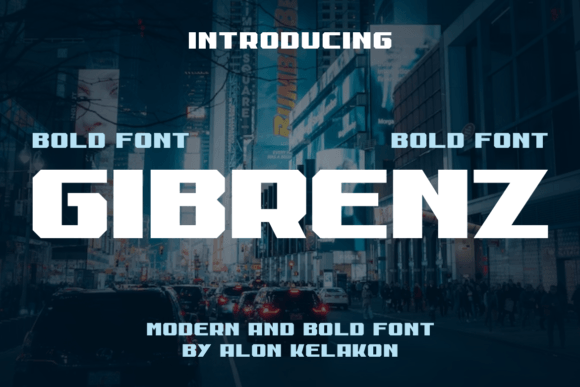
The Perfect Font for the Modern Designer
As a designer, you know the struggle of finding the perfect font to elevate your project from good to great. You’ve spent hours browsing through fonts, trying to find that one that captures the essence of your brand or message. And then, it hits you – the perfect combination of style and readability that makes your design shine.
Enter Gibrenz Font, a clean and versatile sans-serif typeface that’s designed to bring a sense of modern sophistication to any design project. With its balanced letterforms and precise geometry, Gibrenz Font is perfect for branding, editorial layouts, and corporate materials. Whether you’re working on a logo, brochure, or website, this font is sure to impress. Its versatility and readability make it a valuable addition to any designer’s toolkit, and its professional look is sure to leave a lasting impression.
Gibrenz Font Key Features
- Font Family: Gibrenz Font is a sans-serif font family that includes 4 styles: Regular, Bold, Italic, and Bold Italic.
- Size and Resolution: Designed to be highly legible at various sizes and resolutions, from 10pt to 24pt at 300 DPI (dots per inch).
- Unique Characteristics: Gibrenz Font features a unique blend of modern and minimalist design elements, making it perfect for corporate branding, digital products, and editorial content.
- Language Support: Supports a wide range of languages, including English, Spanish, French, German, Italian, Portuguese, and many more.
- Kerning and Glyphs: Optimized kerning and a comprehensive set of glyphs ensure smooth text rendering and accurate representation of characters.
Gibrenz Font Review
I recently had the chance to work with the Gibrenz font, and I must say it’s an interesting addition to the world of typography. ✨ One of the things that stands out is its versatility – it’s available in a range of weights and styles, making it suitable for a variety of applications, from body text to display headlines.
Another aspect I appreciate is its readability. Gibrenz font is designed to be clear and legible, even at smaller font sizes, which is essential for digital applications. The font’s line height is also well-balanced, making it easy to read and scan.
However, there are a few limitations to consider. ⚠️ For one, the font may not be suitable for formal or traditional applications, as its design is quite modern and edgy. Additionally, the font’s consistency can be inconsistent at times, which may be jarring to some users.
- ✨ Versatile and suitable for a range of applications
- ✨ Readable and legible, even at smaller font sizes
- ✨ Well-balanced line height
- ⚠️ May not be suitable for formal or traditional applications
- ⚠️ Consistency can be inconsistent at times
In conclusion, the Gibrenz font is a solid choice for modern and digital applications. While it may not be suitable for all types of projects, its versatility and readability make it a great option for those looking for a clean and modern font.
Tip: Use Gibrenz Font for headings and titles to create a professional and modern look.
Tip: Use Gibrenz Font for presentations and documents to create a professional and cohesive look.
Gibrenz Font is ideal for:
- Modern and minimalist designs.
- Professional presentations and reports.
- Business cards and letterheads.
What is the recommended font size and line height for the Gibrenz Font?
For optimal readability, we recommend using the Gibrenz Font at a minimum size of 12 points and a line height of 1.5 to 2 times the font size. This will ensure clear and legible text in most design contexts.